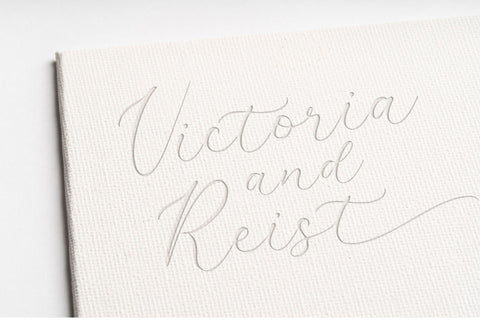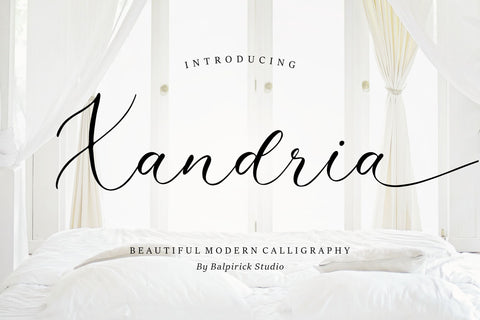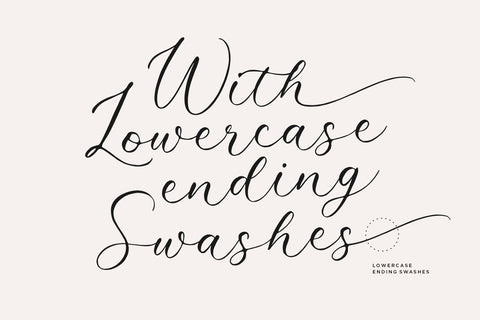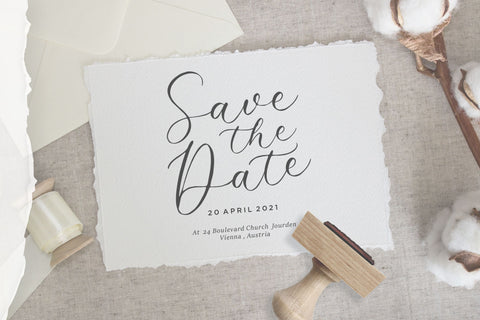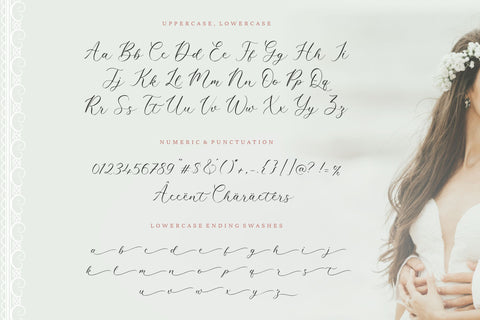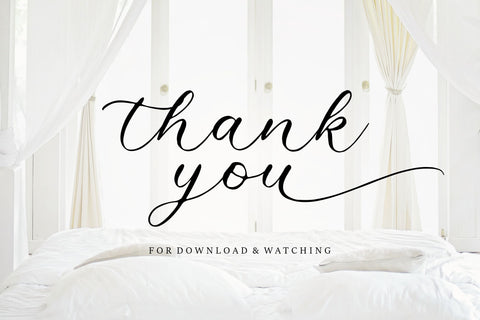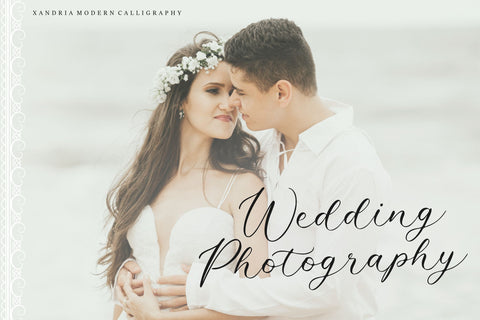
Xandria Beautiful Modern Calligraphy Font
Proudly Present, Xandria Font.
Xandria is a Beautiful Modern Calligraphy Font.
Xandria is perfect for product packaging, branding project, megazine, social media, wedding, or just used to express words above the background.